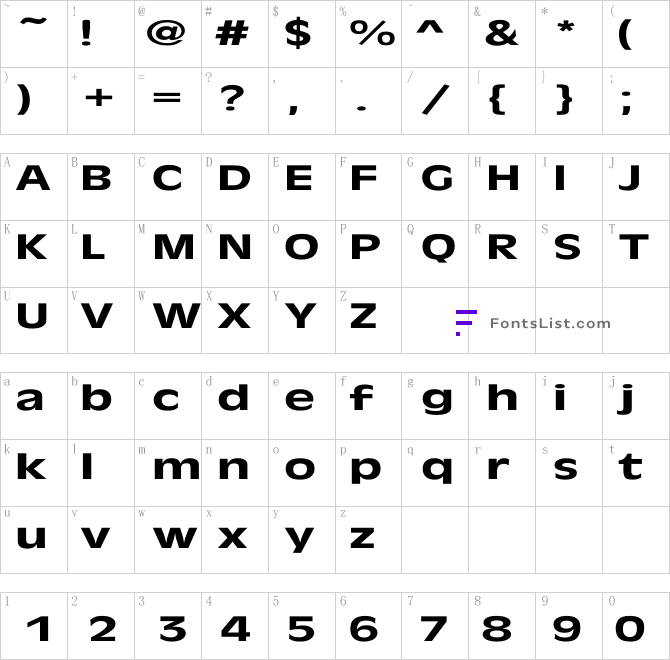
- Font Name:Antique-Olive-Bold Expanded
Antique-Olive-Bold-Expanded.ttf is a very beautiful artistic font, Antique-Olive-Bold-Expanded.ttf is widely used in the design and printing of various books and pictures,Antique-Olive-Bold-Expanded.ttf has a strong visual impact,Antique-Olive-Bold-Expanded.ttf is a commonly used font in newspapers, magazines and books, and is used in posters, e-commerce Poster design, store design, logo design, font design and other fields.Antique-Olive-Bold-Expanded.